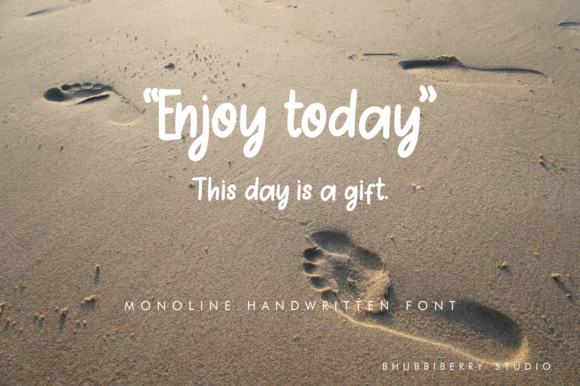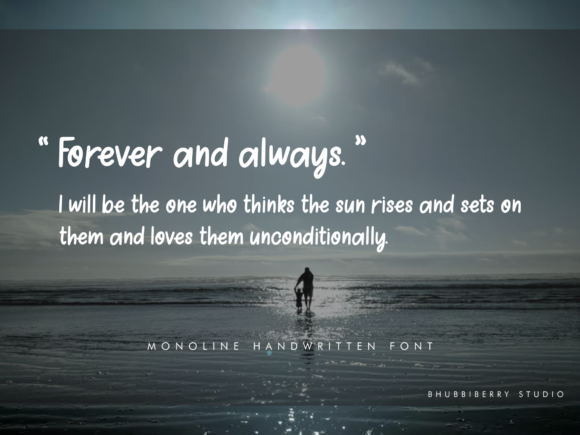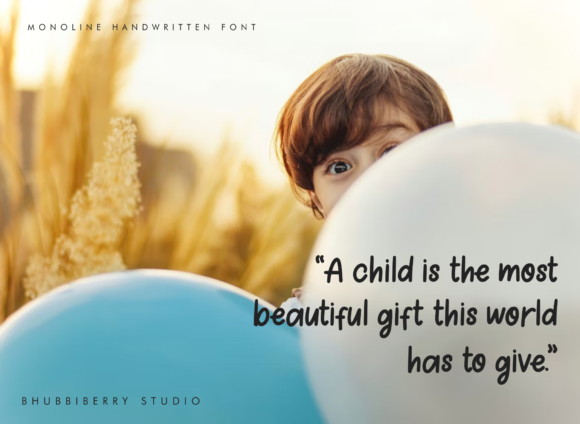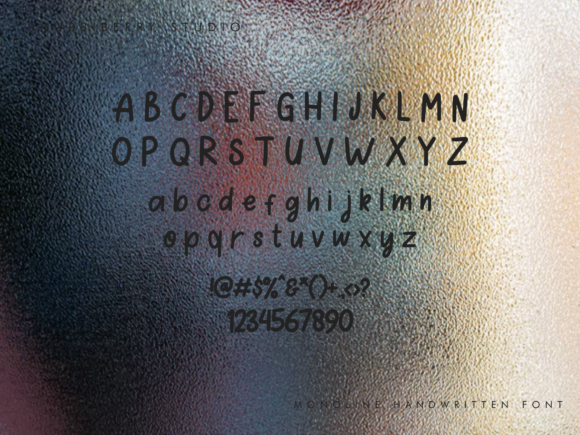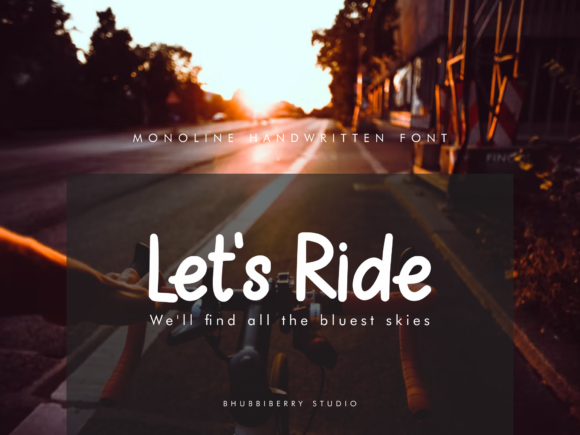
Introduction to Elnino KIddy Font
As designers, we’ve all been there – staring at a blank canvas, trying to bring a creative project to life. The perfect font can be the difference between a design that’s just okay and one that truly stands out. That’s where the Elnino KIddy Font comes in – a simple, yet effective solution for any branding project.
With its cute and casual handwritten style, the Elnino KIddy Font is perfect for logos, t-shirt printing, newspapers, posters, advertisements, and more. Its versatility makes it a valuable resource for designers looking to add a personal touch to their work. Whether you’re working on a high-profile campaign or a personal project, this font is sure to make your design shine.
Key Features of Elnino KIddy Font
- Features a unique, modern design with a transparent background, allowing for seamless integration with various backgrounds.
- Perfect for designers and artists looking for a versatile and stylish font to enhance their creative projects.
Honest Review: Elnino KIddy Font
As a designer, I’m always on the lookout for high-quality design resources that can elevate my creative projects. The Elnino KIddy Font is one such resource that caught my attention. With its unique style and versatility, I was excited to give it a try.
- Unique and creative design that adds a touch of personality to any project
- Supports transparent background, giving users more flexibility in their designs
- Limited character set, which may not be suitable for extensive text-based projects
- No comprehensive documentation or guide on how to use the font effectively
Overall, the Elnino KIddy Font is a great addition to any designer’s toolkit. While it has its limitations, its unique design and free download make it an excellent choice for creative projects. With a little experimentation and creativity, designers can unlock the full potential of this font and take their designs to the next level.
The Elnino KIddy Font is a high-quality, free download that can elevate your creative project with its unique and stylish design. This font is ideal for various applications, including digital and print media.
Tips for Getting the Most Out of Elnino KIddy Font
To maximize the potential of the Elnino KIddy Font, consider the following tips:
- Use the font on a transparent background to create a striking design.
- Experiment with different font sizes and styles to achieve the desired effect.
- Combine the Elnino KIddy Font with other design elements to create a unique and engaging design.
The Elnino KIddy Font is ideal for various design projects, including:
Alternatives to Elnino KIddy Font
Pacifico is a beautiful, elegant script font perfect for creative projects that require a touch of sophistication. It’s ideal for use in branding, invitations, and any other design where a high-quality, handwritten look is desired.
Pacifico is a great alternative to Elnino KIddy Font as it offers a more refined and polished look, while still maintaining a unique and artistic feel. It’s available for free download and features a transparent background, making it easy to integrate into any design resource.
Great Vibes is a modern, cursive font that’s perfect for designers looking for a fun and playful touch for their creative project. It’s great for use in social media graphics, advertising, and any other design where a high-energy vibe is desired.
Great Vibes is a great alternative to Elnino KIddy Font as it offers a more vibrant and dynamic look, while still maintaining a sense of elegance and sophistication. It’s available for free download and features a transparent background, making it easy to integrate into any design resource.
Q: Does the Elnino KIddy Font have a transparent background?
Yes, the Elnino KIddy Font has a transparent background, making it easy to use in design projects that require a clear or transparent font. This feature is especially useful for designers working on graphics, logos, or other creative projects that require a high level of customization.